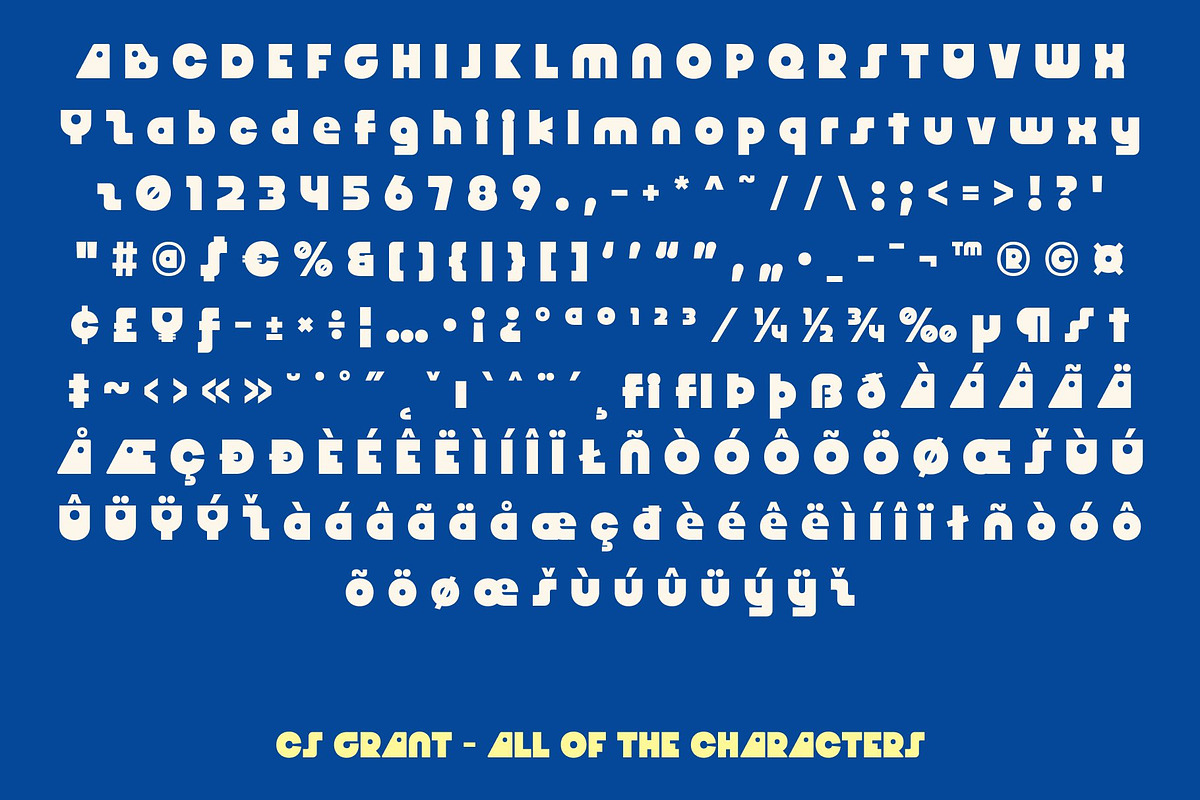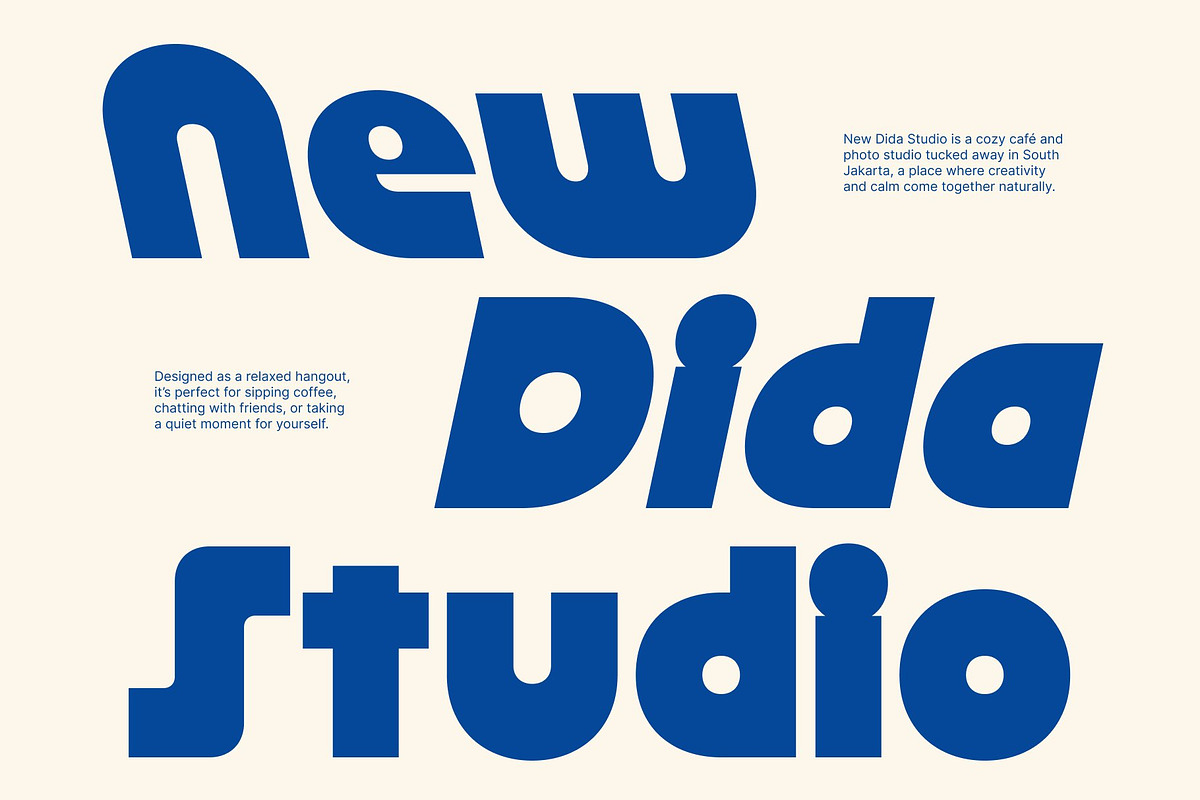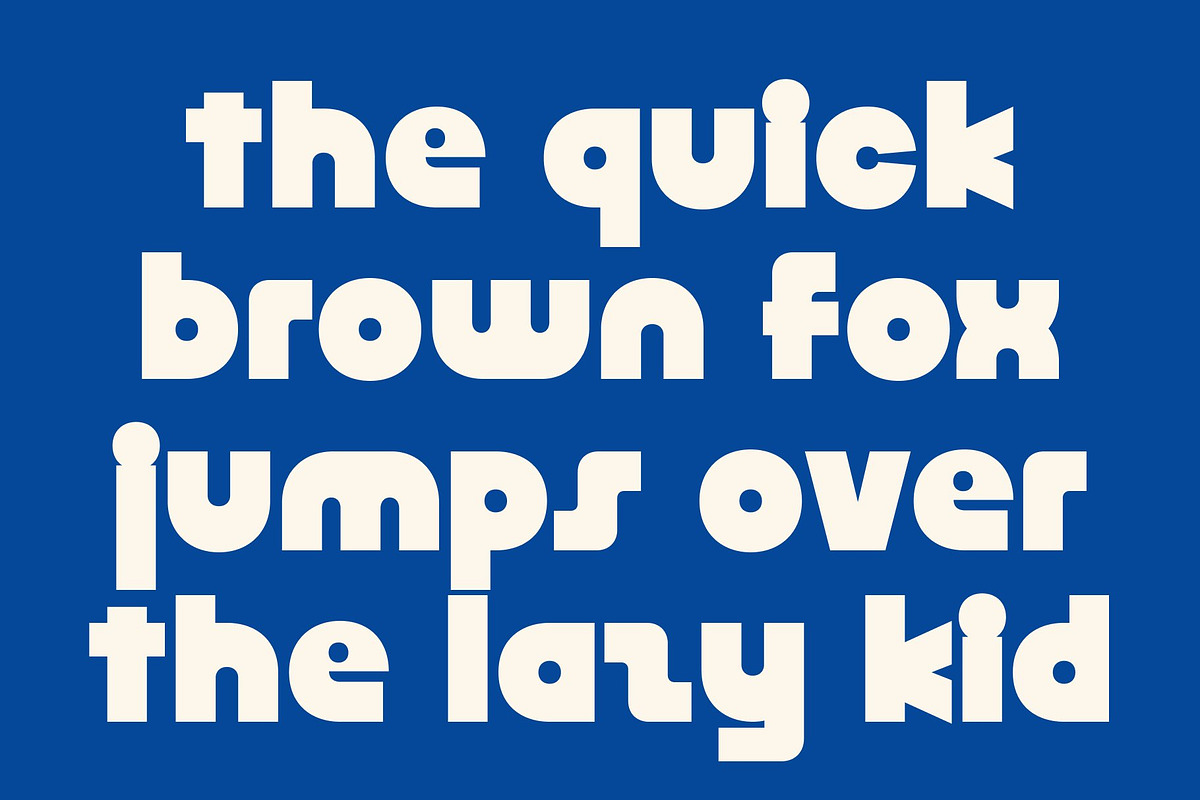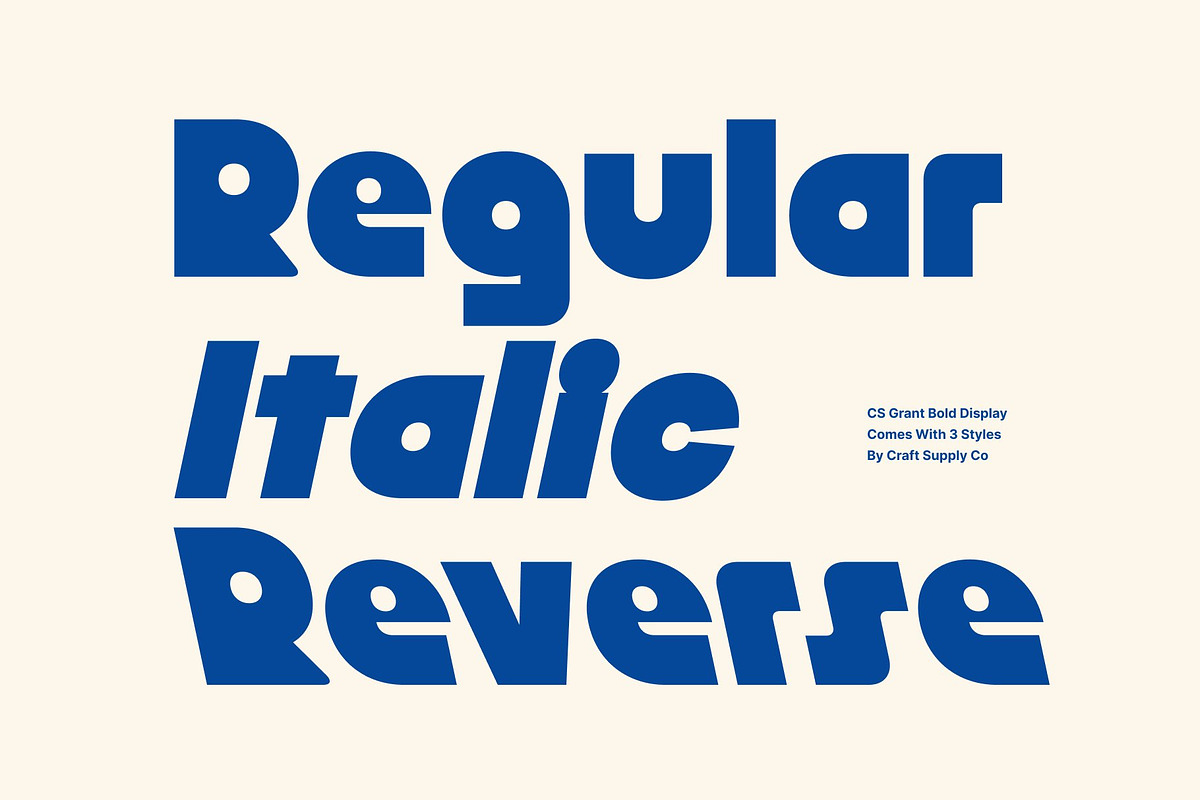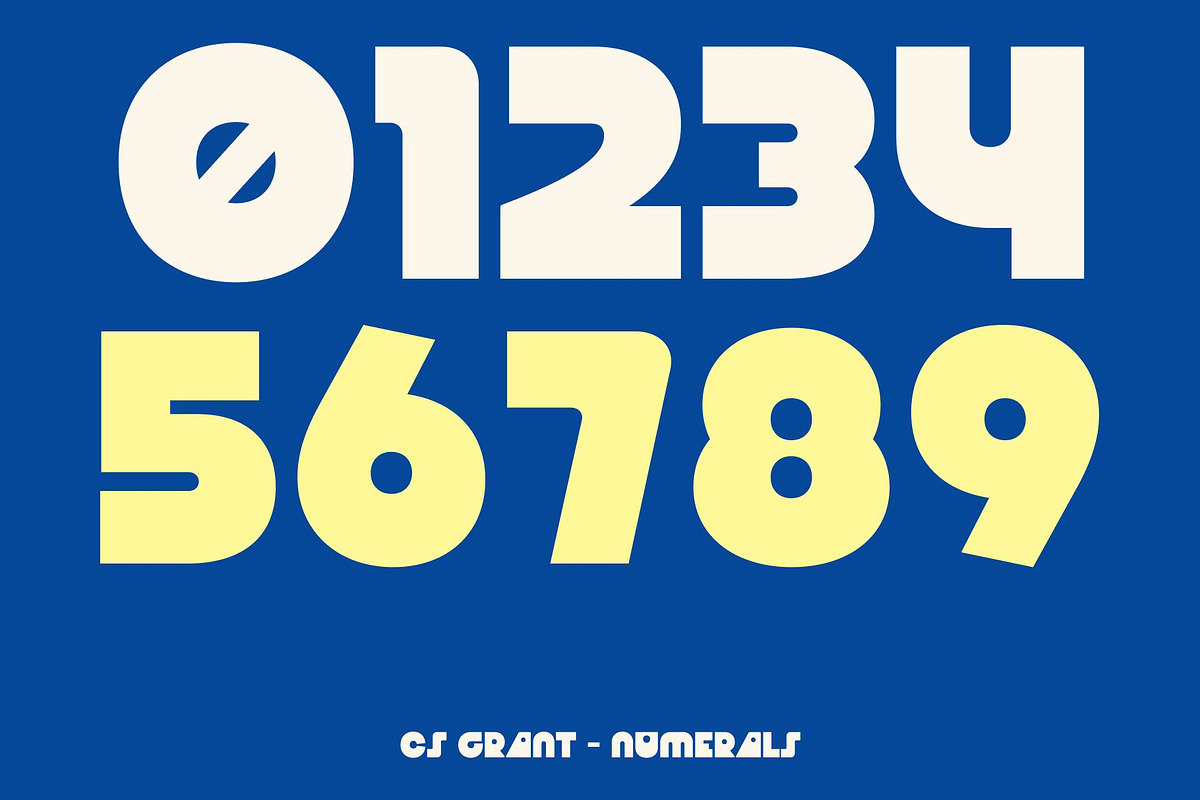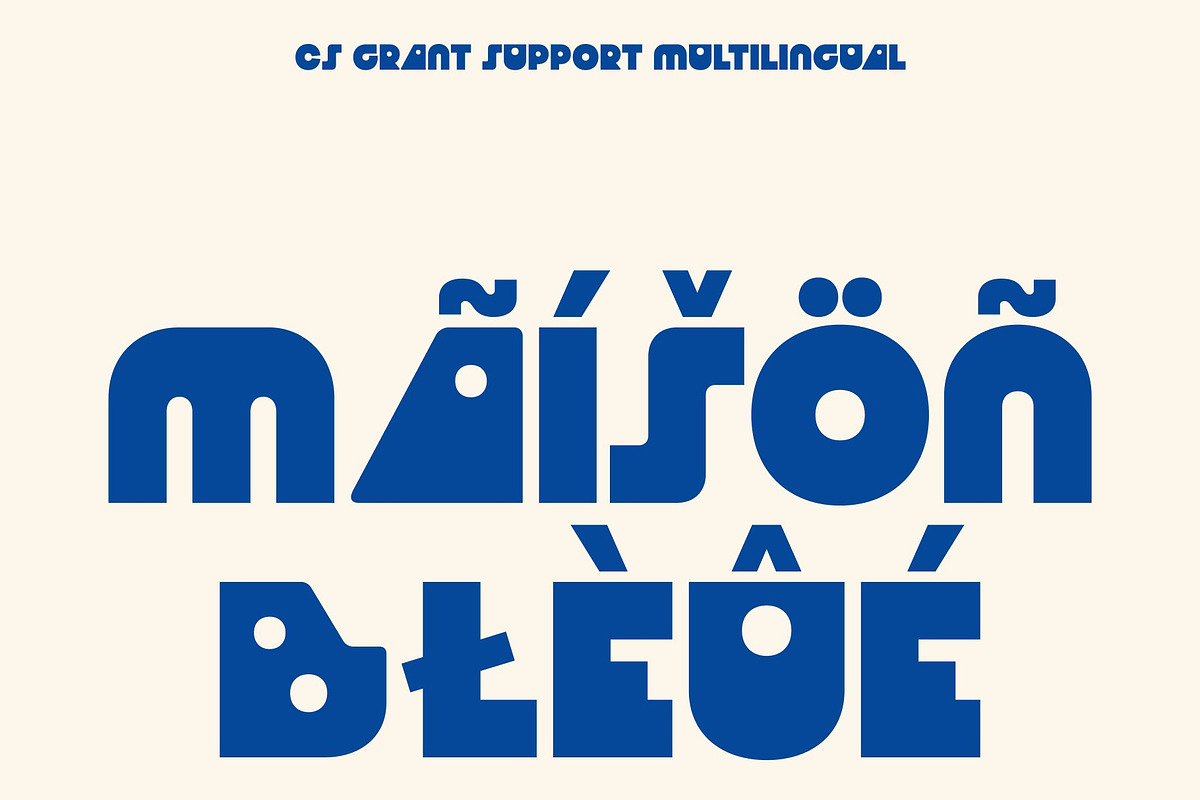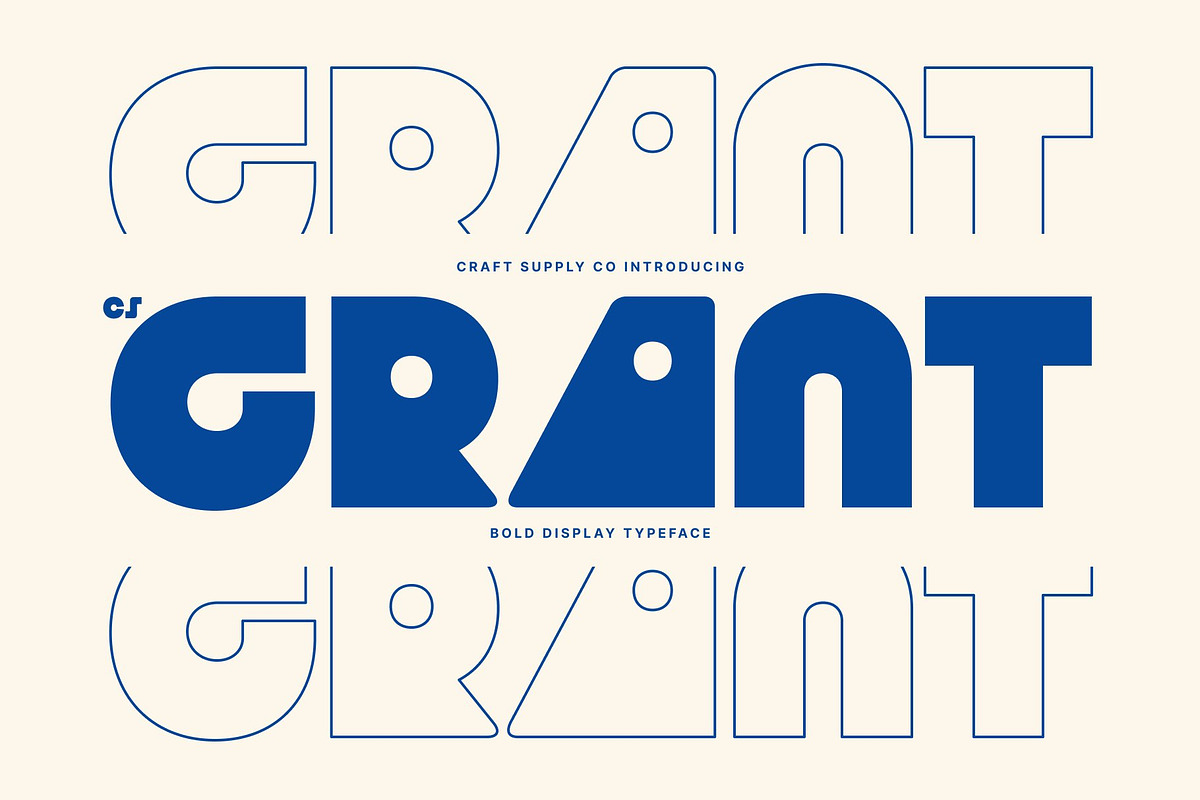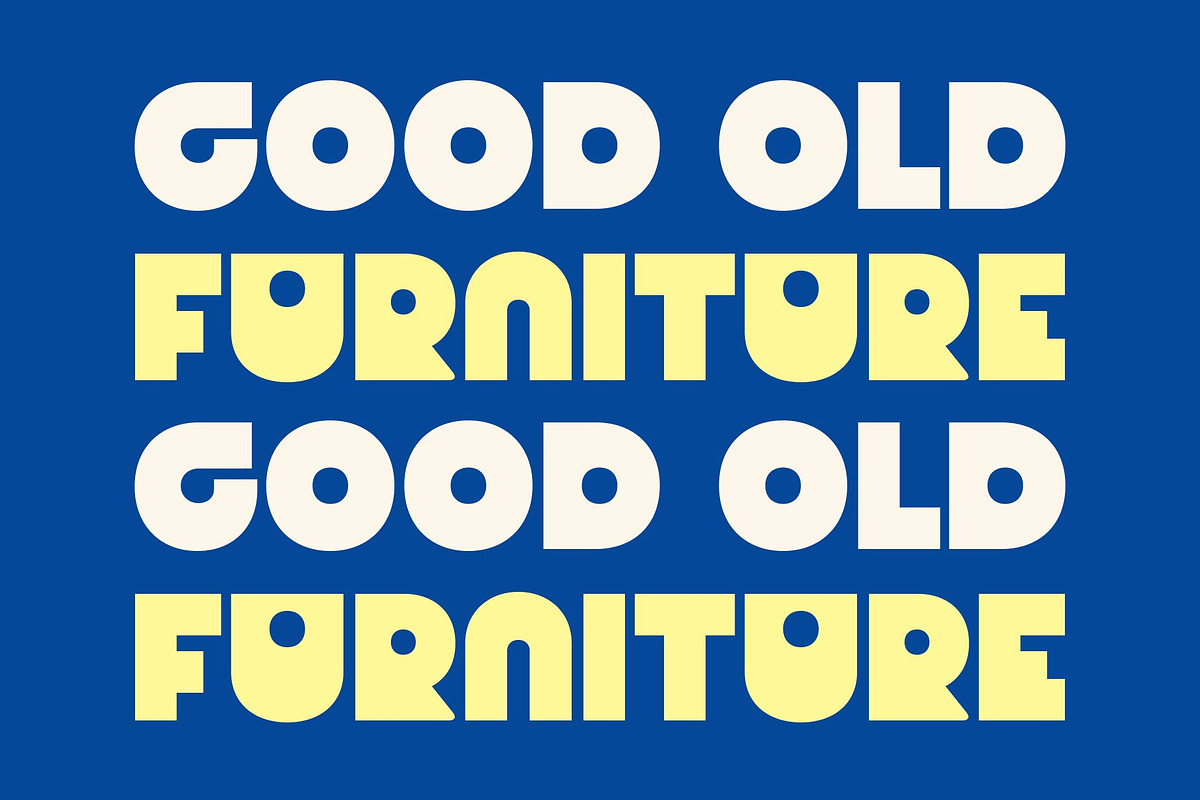
CS Grant – Display Typeface
CS Grant – Modern Display Typeface with Experimental Geometry
Modern Structure with Bold Expression This is a modern display typeface built from a combination of strong geometric shapes and bold construction. Its confident structure creates an immediate visual impact, while its experimental letterforms give the font a distinctive and contemporary character. This makes this font ideal for designs that aim to feel fresh, innovative, and visually striking.
Geometric Forms with Unique Personality What sets this font apart is its unconventional approach to geometry. The bold shapes and unexpected details add a sense of creativity and originality, ensuring the font stands out from standard display typefaces. Despite its experimental nature, the design remains balanced and readable, making it both expressive and functional.
Fresh, Modern, and Eye-Catching This font delivers a fresh and modern aesthetic that feels energetic and forward-thinking. Its strong presence and creative structure make it perfect for designs that want to push visual boundaries while staying clean and contemporary. The font brings confidence and style to any layout.
Perfect for Magazines and Design Titles Designed for display use, this font excels in magazine layouts, posters, branding, and design titles. Whether used as a headline or a focal typographic element, it adds originality, modern appeal, and bold character to creative projects that demand attention and freshness.
- CS Grant Regular
- CS Grant Italic
- CS Grant Reverse Italic